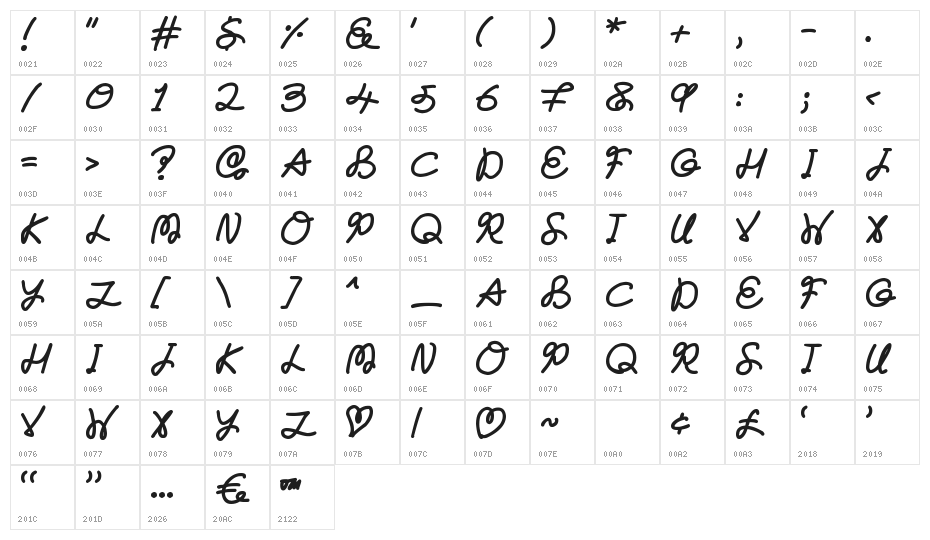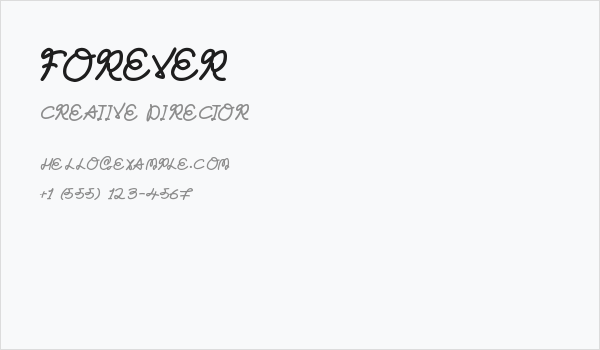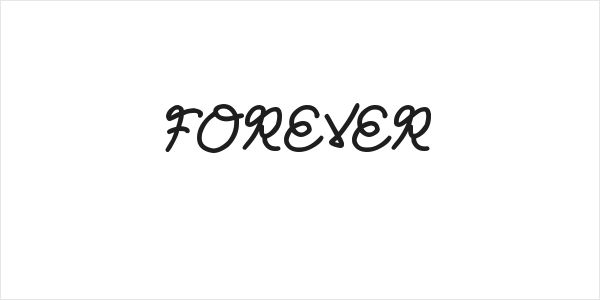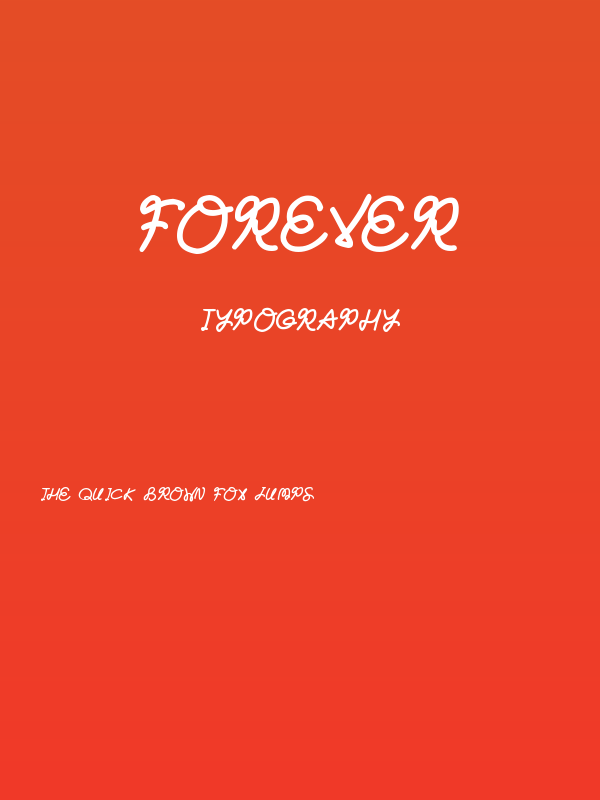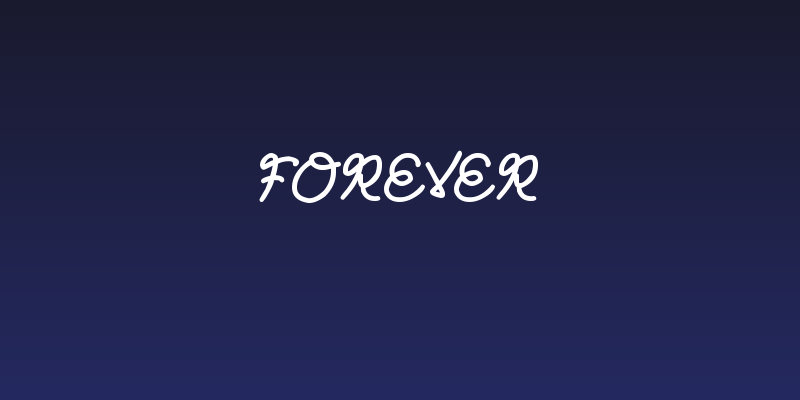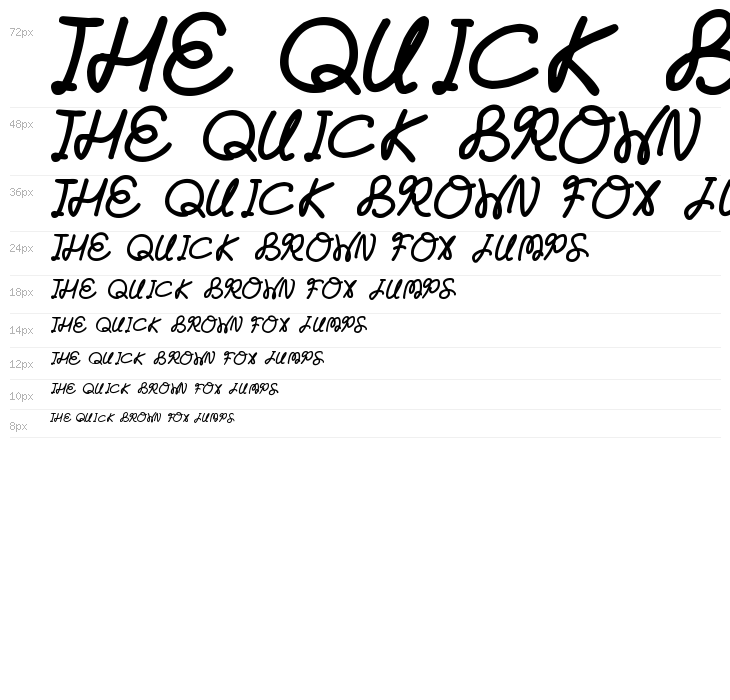
Forever Font
Forever Description
This font features a playful and energetic script style, characterized by its fluid, connected strokes and a handwritten appearance. The letters are bold and rounded, with a consistent thickness that gives them a lively and approachable feel. The uppercase and lowercase letters maintain a cohesive look, with slight variations that add to the font's charm. Numbers and special characters are designed to match the overall style, ensuring a harmonious appearance across all text. The font's informal and friendly nature makes it suitable for creative and casual applications.
Proposed ProjectsIdeal for greeting cards, invitations, playful branding, and social media graphics.